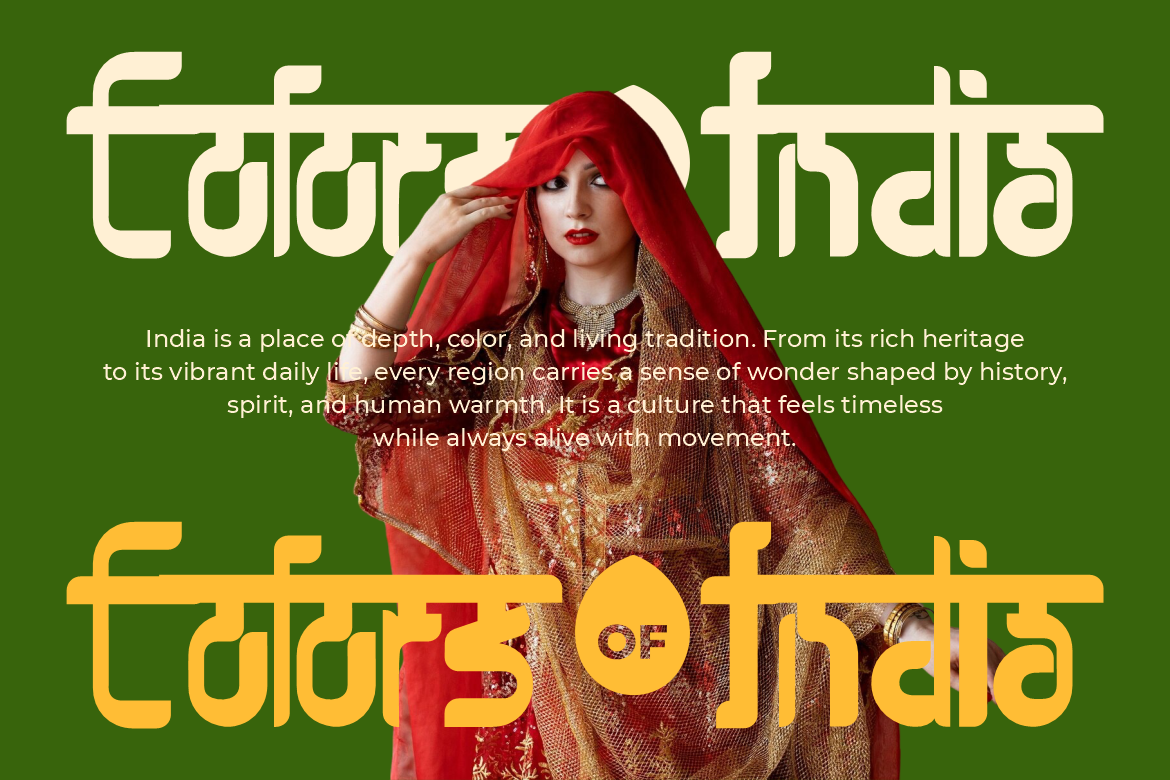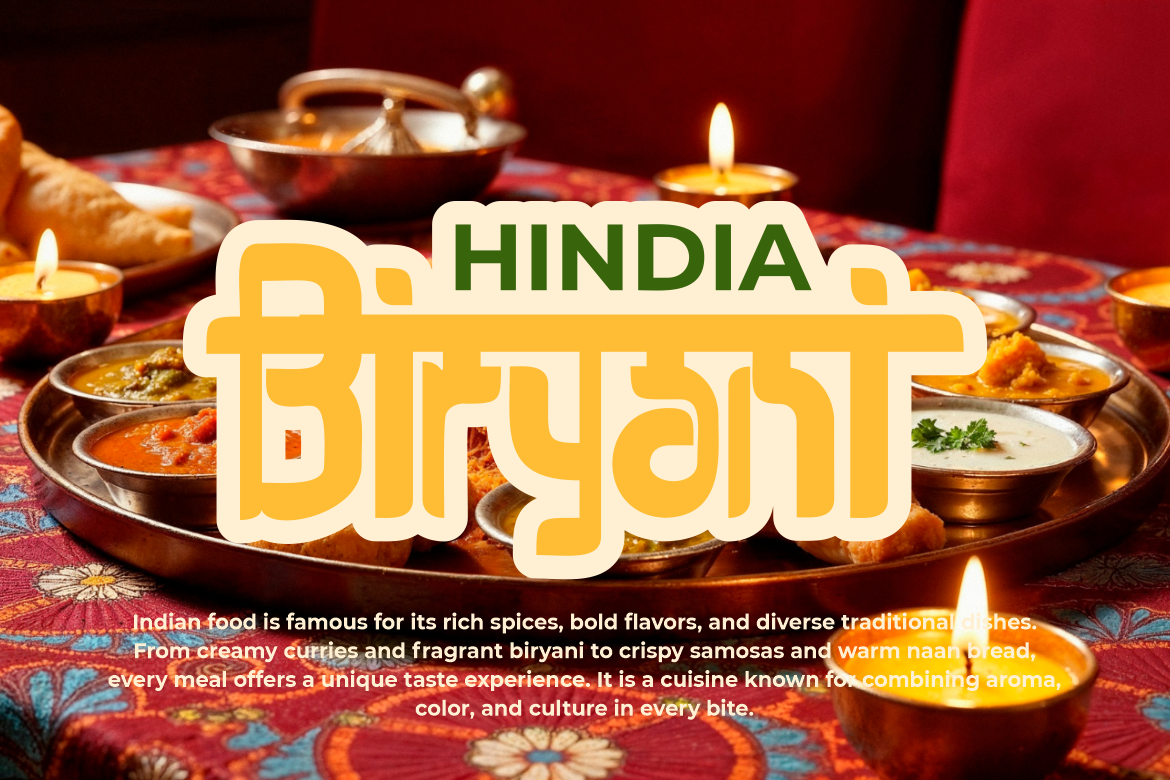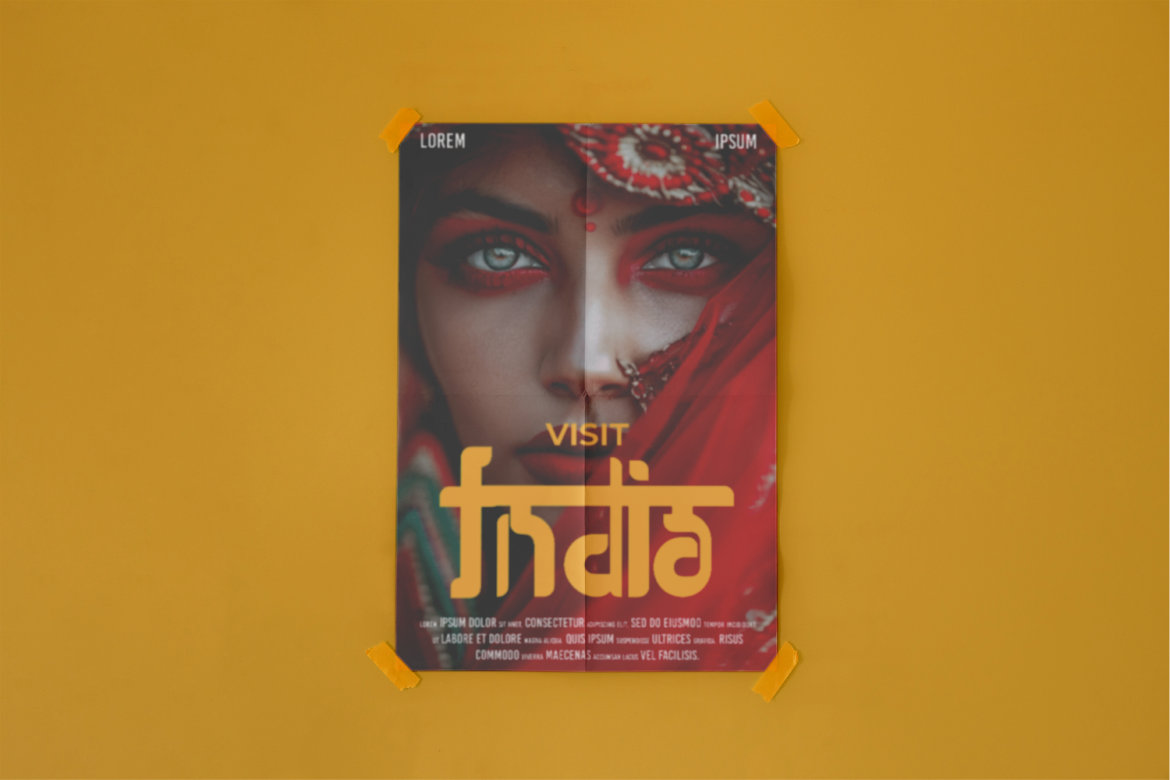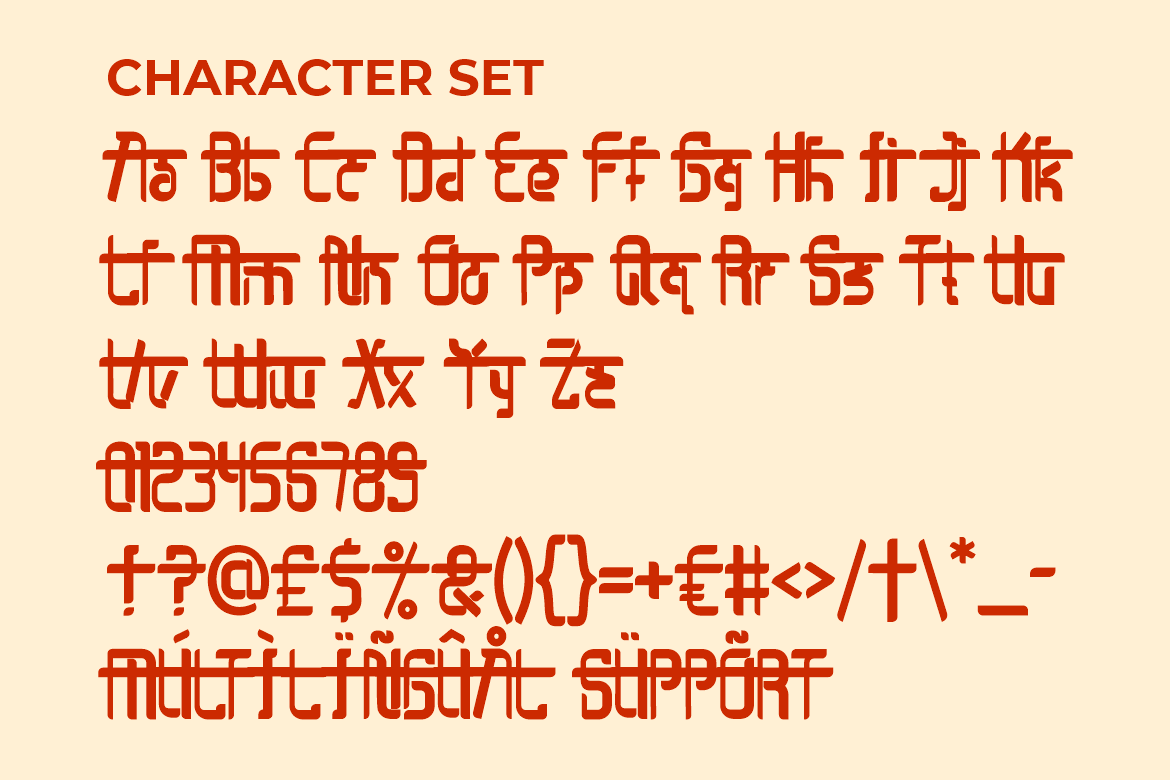
Mandraya Hindi Style Font brings a cultural character with tall forms and a strong headline bar. The letters feel wide, rounded, and clean, with smooth cuts and steady rhythm. Their structure echoes Hindi and Sanskrit lettering while staying readable for Latin-based layouts. This balance makes it useful for logo design, branding, posters, and headline composition. It suits heritage businesses, Indian food branding, India travel promotion, cultural events, and souvenir packaging. Designers can also use it for book covers, magazine titles, label work, and advertising.
The font carries a traditional mood, yet its simplified shapes keep the message fresh and practical. It works well for restaurant logos, spice packaging, tea label design, and dessert branding. Beyond food, it fits museum campaigns, tourism posters, yoga studios, wellness products, and craft businesses. Its horizontal flow gives short names a memorable silhouette for signs and product identity. Use it for invitation cards, greeting cards, sticker design, menu titles, and poster graphics. Each word feels cultural, warm, and expressive without losing clarity.
Mandraya Hindi Style Font also supports broader commercial projects that need an Asian and classic voice. It can shape film titles, festival posters, gift tags, packaging systems, and business headlines. The character set includes uppercase, lowercase, numbers, punctuation, and multilingual support for flexible layouts. This makes it useful for print branding, digital branding, and shop signs. From heritage shops to hospitality brands, the font helps create a distinct identity. Mandraya Hindi Style Font gives logos a cultured presence with timeless regional character.